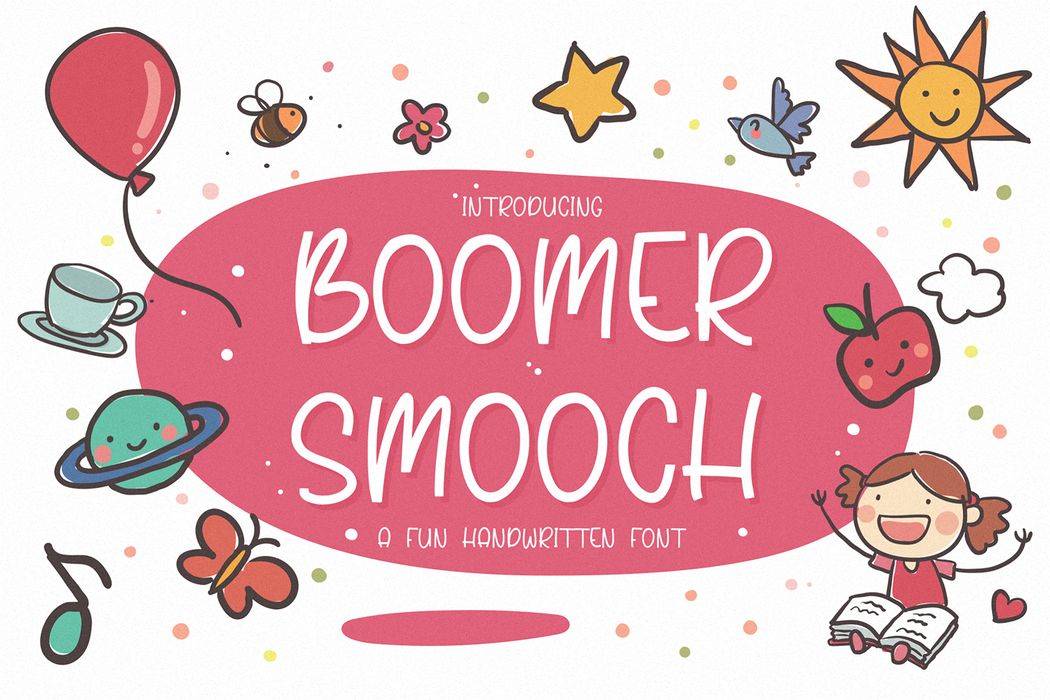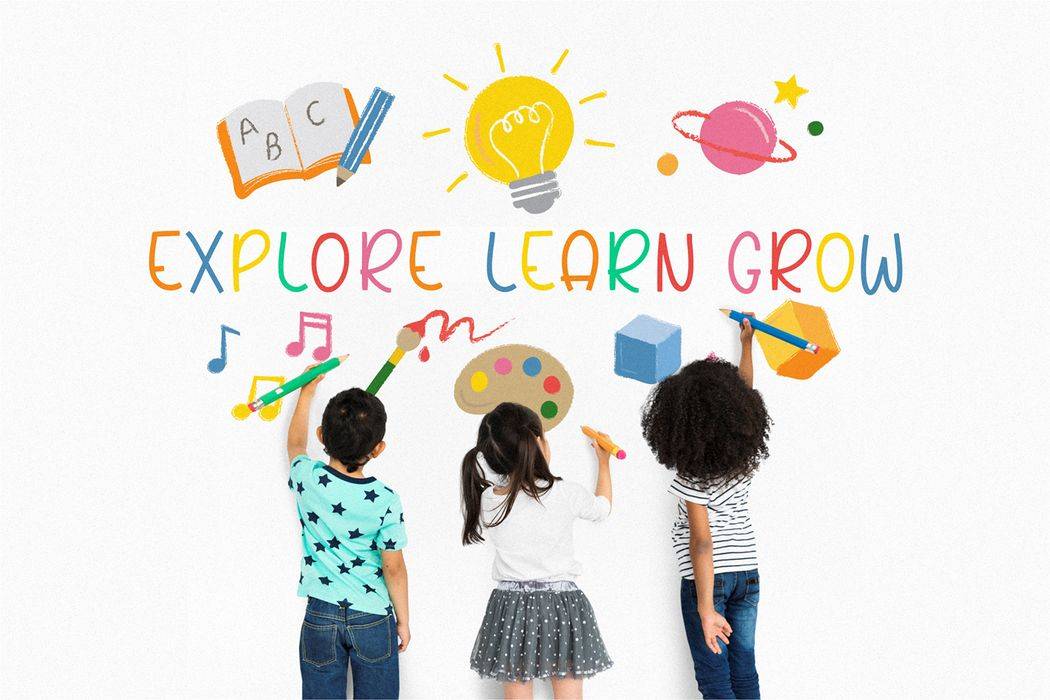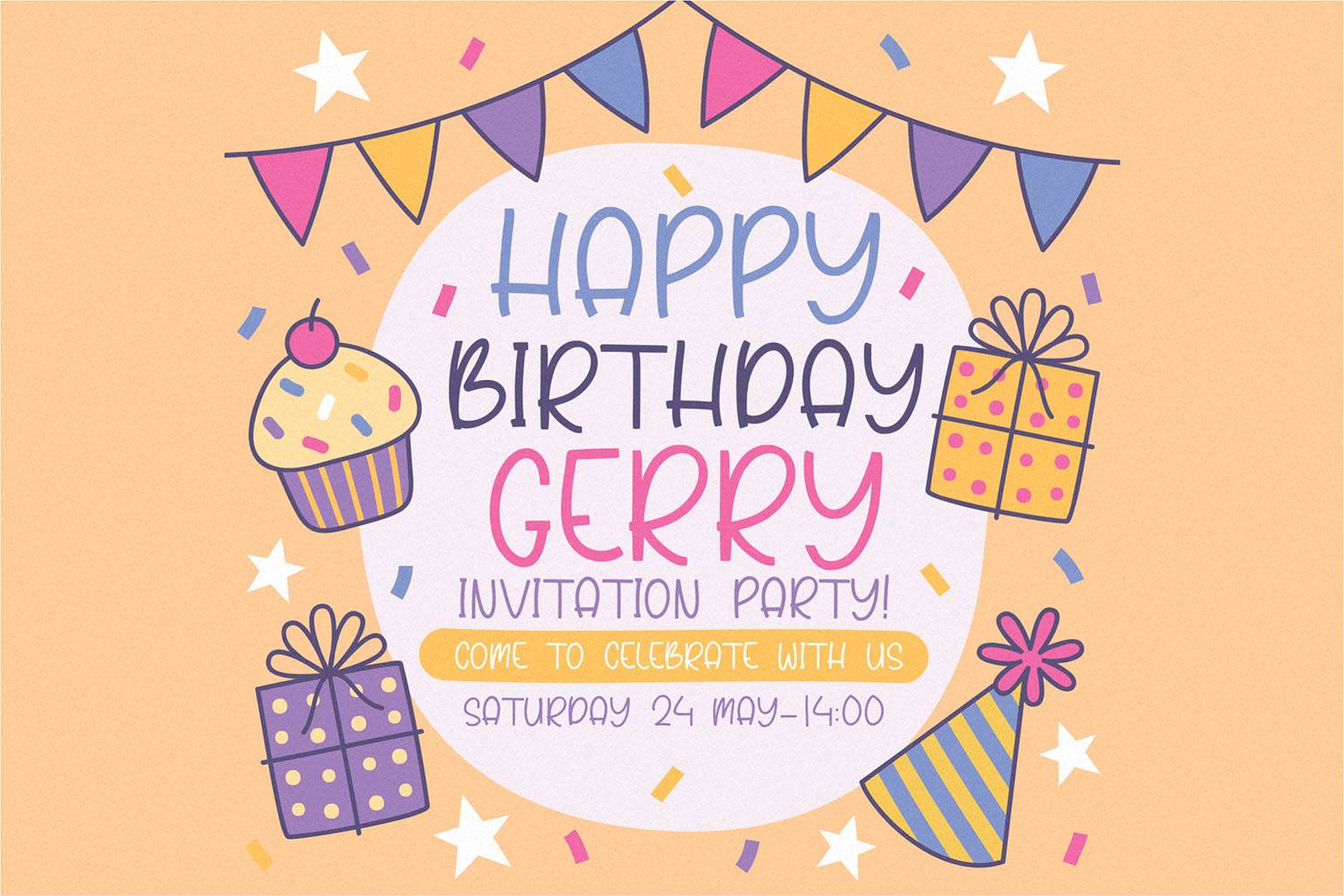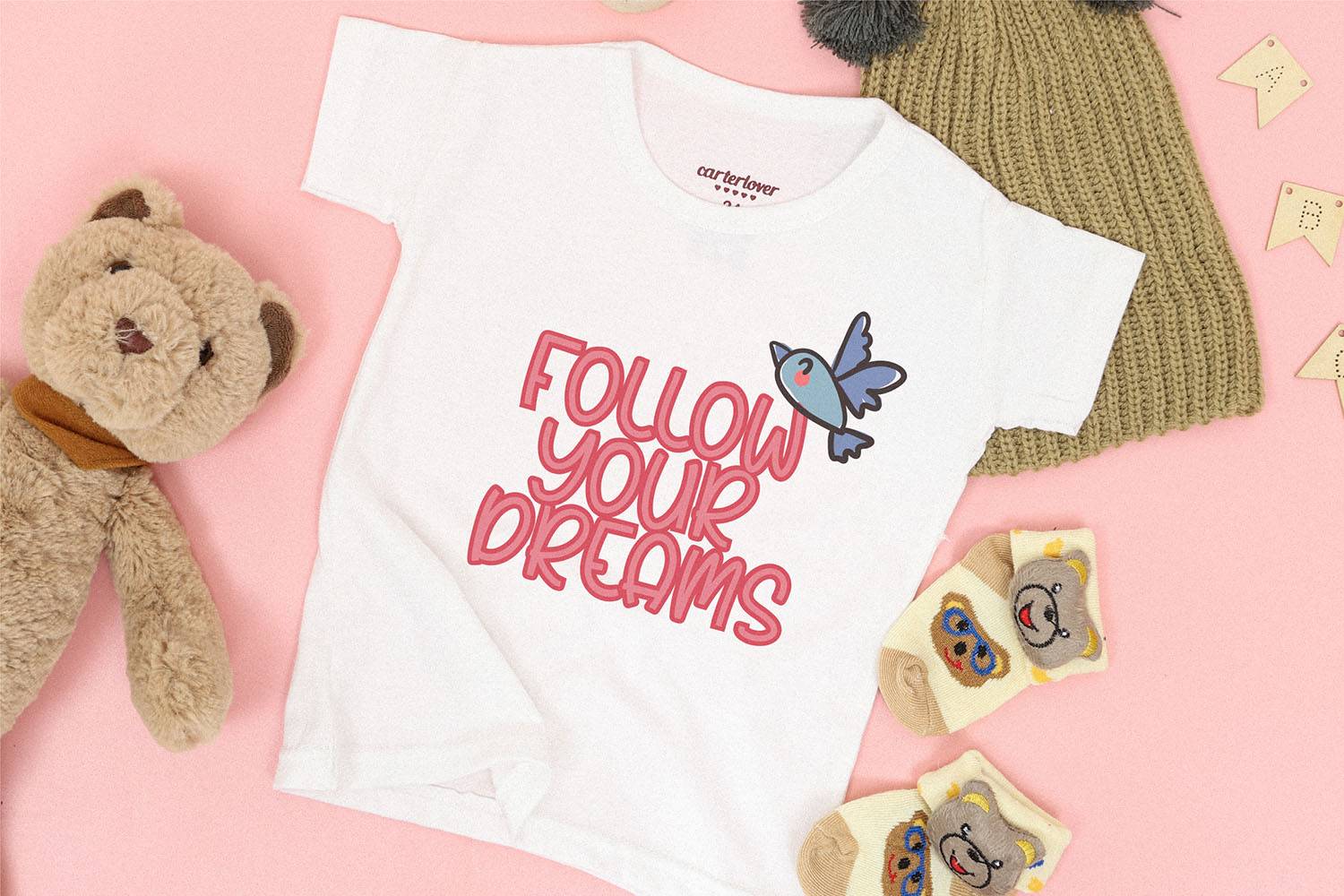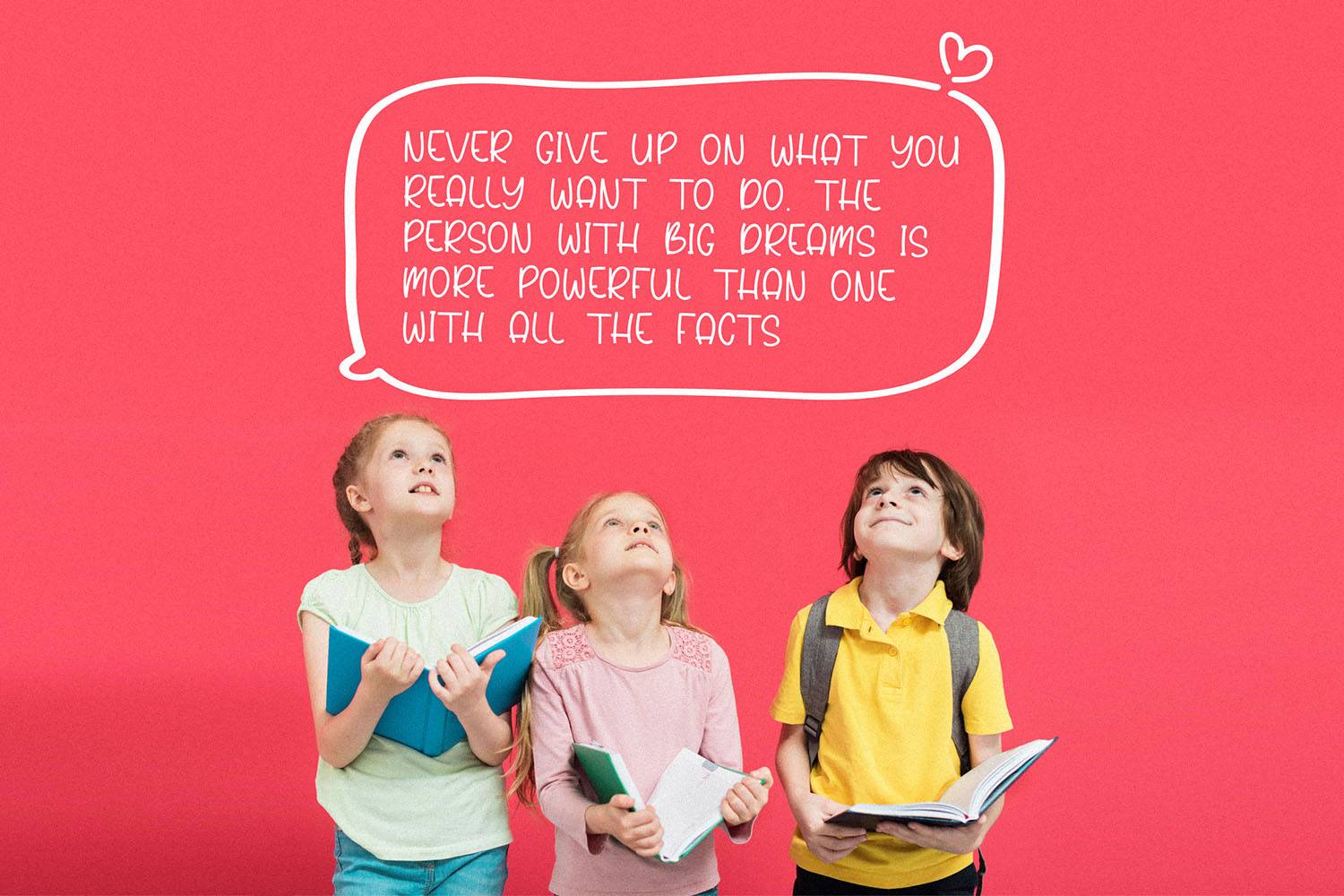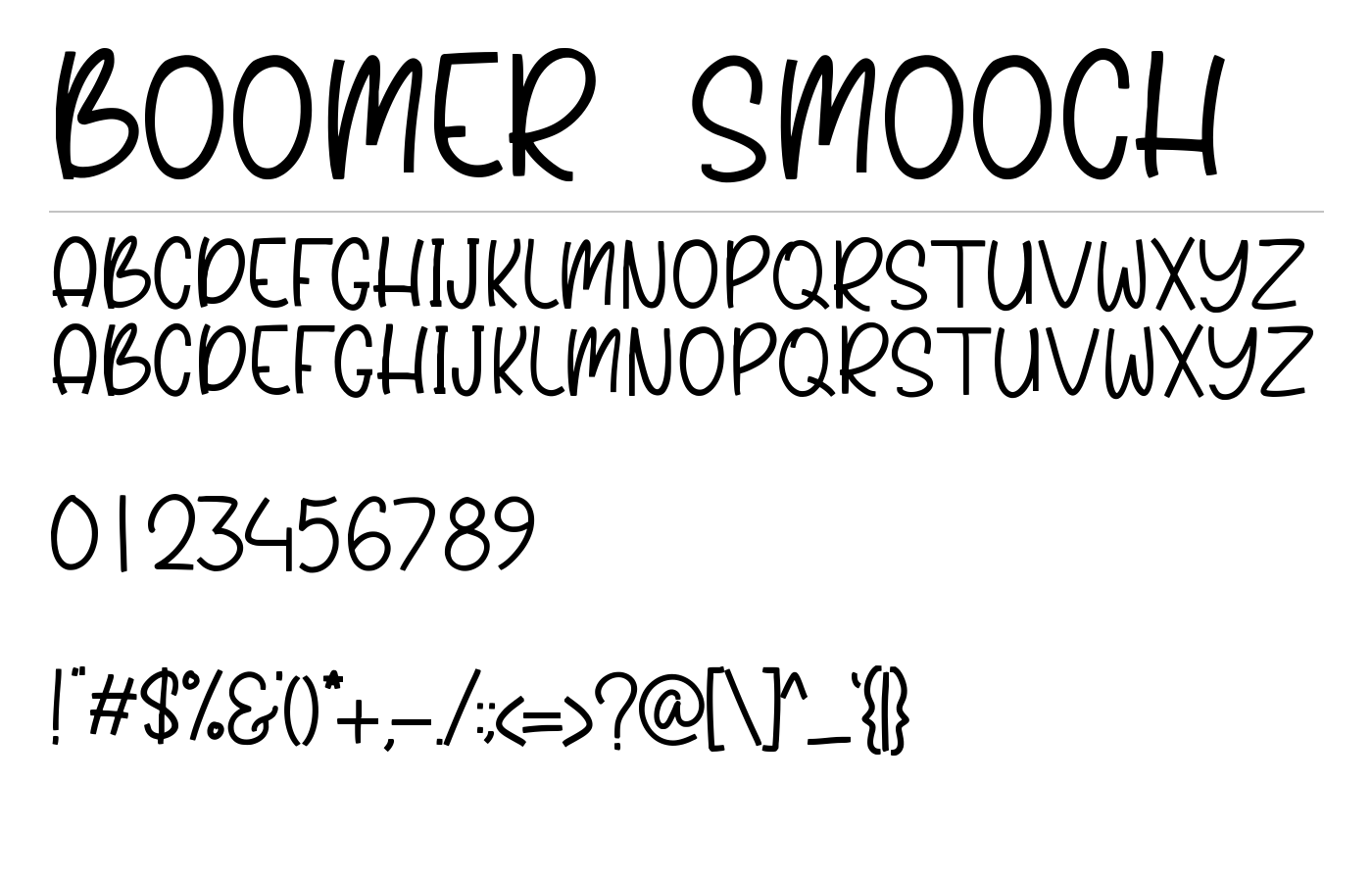
Boomer Smooch is a playful, hand-drawn sans serif font with a casual and friendly style. Its tall, slightly condensed letterforms feature uneven strokes that give it an organic, handwritten feel, making it perfect for fun and informal designs like greeting cards, children’s books, and creative branding. This font's whimsical personality shines in headlines and logos that want to convey warmth and approachability.
Boomer Smooch Font
About Boomer Smooch Font